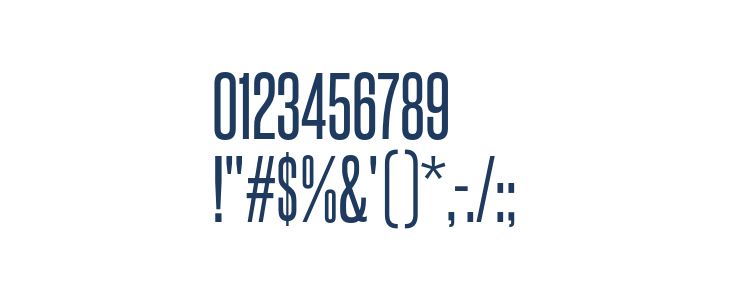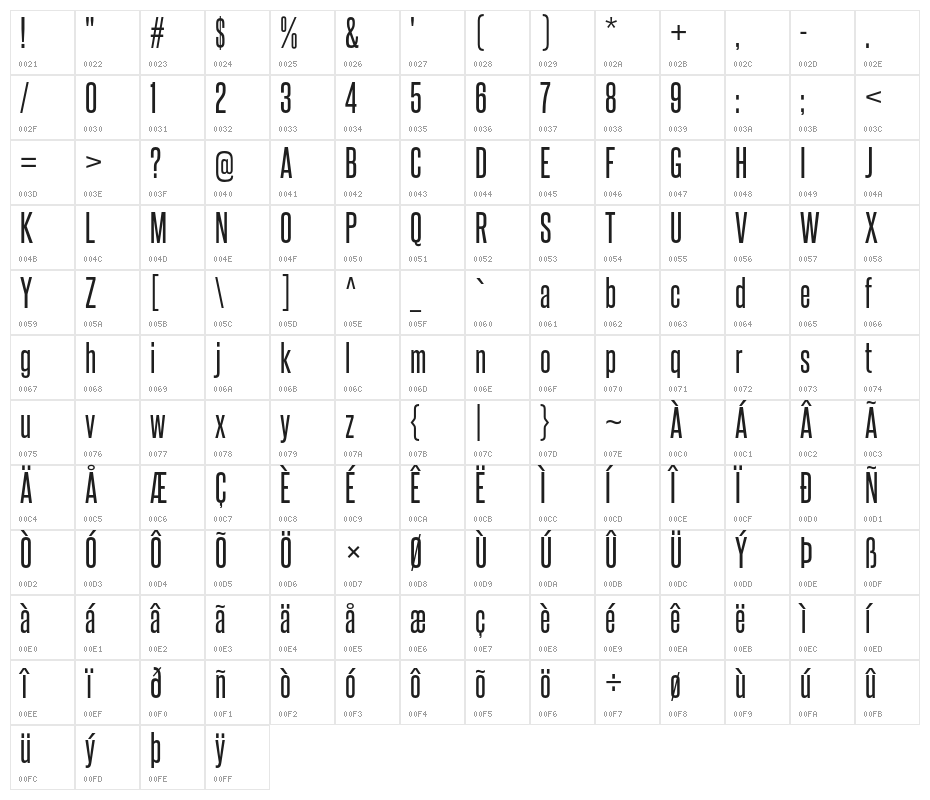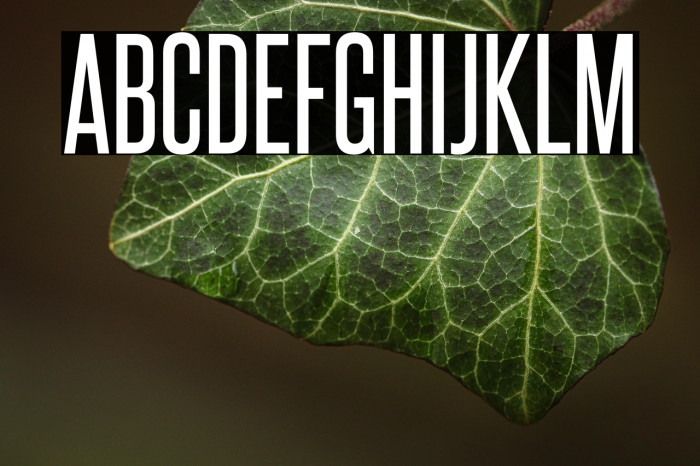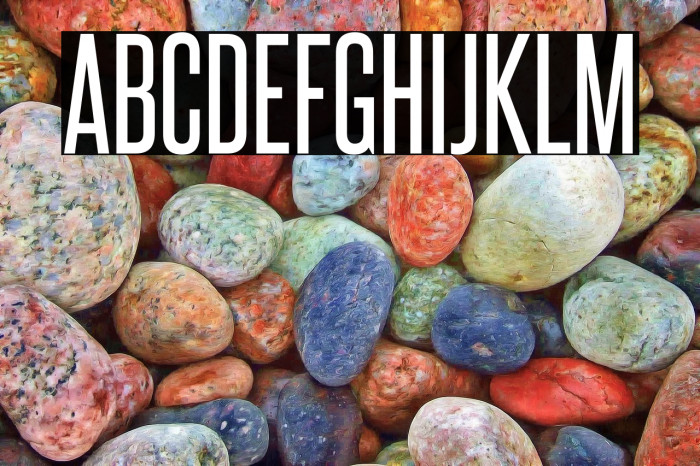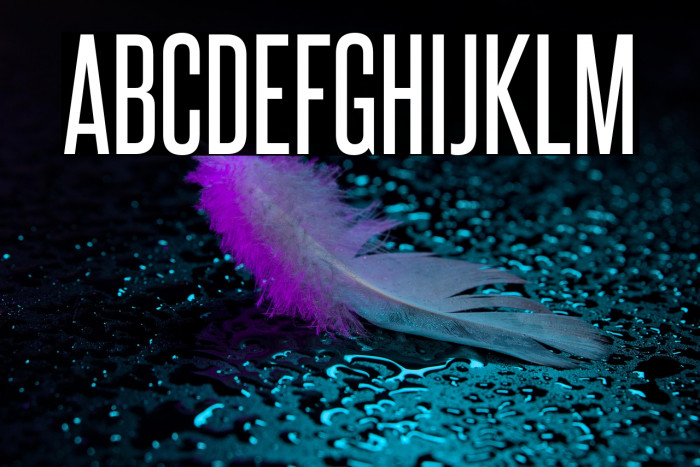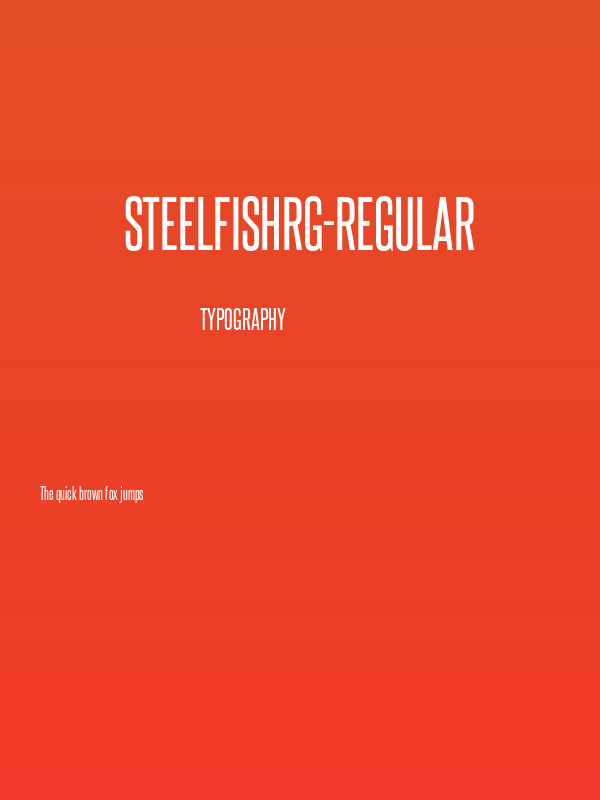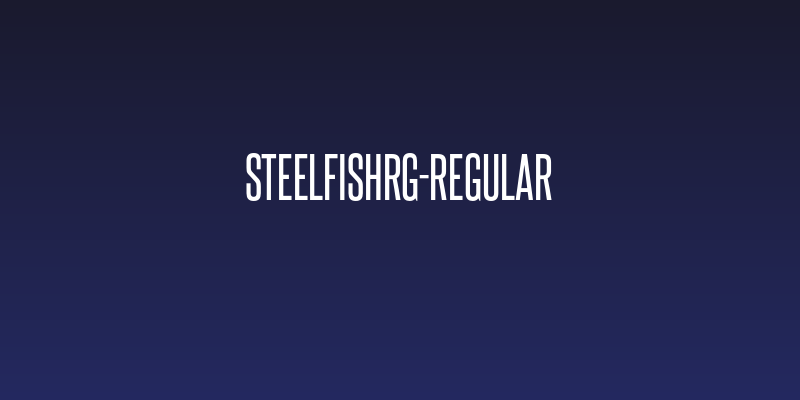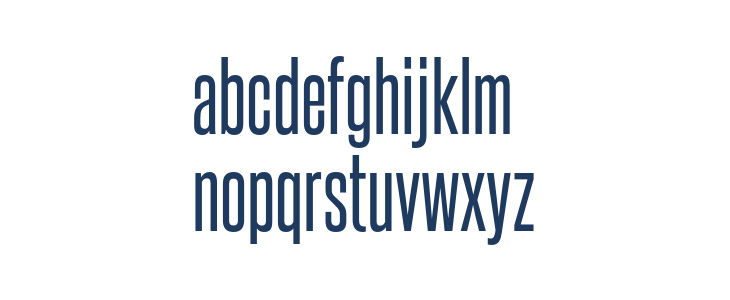
SteelfishRg-Regular Font
SteelfishRg-Regular Description
This font features a tall and condensed design with a modern and sleek appearance. The characters are uniformly narrow, which gives it a distinctive and bold look. The uppercase and lowercase letters maintain a consistent height ratio, contributing to its clean and structured aesthetic. The numbers and special characters are designed to match the overall style, ensuring a cohesive appearance across all text elements. The font's simplicity and clarity make it highly legible, even at smaller sizes, while its condensed form allows for efficient use of space.